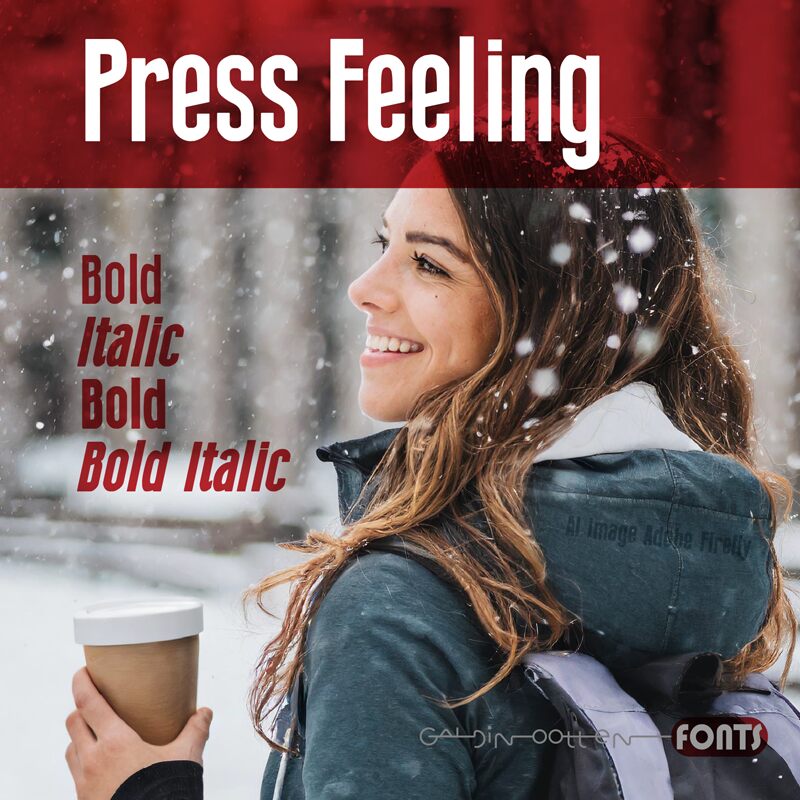
Press Feeling Regular
Press Feeling font by Galdino Otten is a modern condensed sans serif font that combines geometric shapes and minimalistic forms for a natural design. Although the letters are not monospaced, they do give off a certain monospacing illusion with their width, making their interaction unique. And since this legibility is inevitable, the presence of every character pushes your viewers to read.
A free sans serif font offers unprecedented character and possibility to those who use it in their branding designs for coffee shops, clothing stores, bookstores, etc. The style that embodies both past and present matches well with the typography used in magazine covers or other types of editorial print and digital projects such as UX/UI designs where text is vital to the experience.